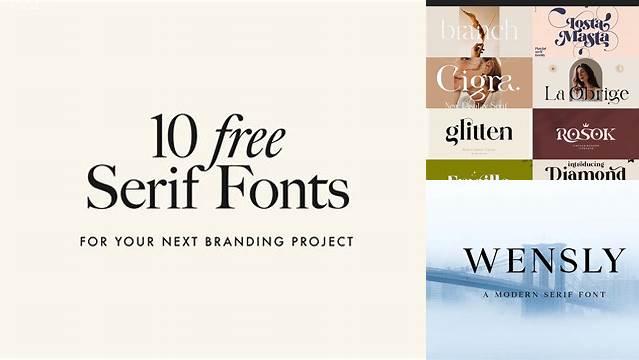
1. What Makes Modern Serif Fonts Unique?
Modern serif fonts stand out because they blend the timeless elegance of traditional serifs with a contemporary twist. Think of those classic fonts you see in books, but with a sleek, updated look. What truly sets modern serif fonts apart is their high contrast between thick and thin strokes, giving them a sophisticated and polished feel. These fonts often have a vertical stress (meaning the thickest parts of the letters are on the top and bottom rather than diagonally), which adds to their clean and structured appearance. Compared to other serif fonts, like old-style serifs that have a more organic and handwritten vibe, modern serifs feel much more geometric and refined. This makes them incredibly versatile, fitting seamlessly into both digital and print designs. You can use modern serif fonts free download options to create a luxurious feel in branding or add a touch of formality to editorial designs. Their unique character helps to make your text not just readable but also visually striking, enhancing the overall impact of your message. Using them effectively can truly elevate your design, making it feel professional and stylish.
2. The Timeless Appeal of Serif Fonts
Serif fonts, including modern serif fonts, have a long and rich history that contributes to their timeless appeal. The little strokes at the ends of letters, known as serifs, date back to ancient Roman inscriptions. These serifs were originally created to neaten the ends of brushstrokes when carving letters into stone. Over centuries, serifs became a hallmark of formal typography, lending a sense of tradition and authority to the text. Serif fonts are often associated with classic literature, prestigious newspapers, and academic publications, which further cements their reputation for reliability and sophistication. In the digital age, their readability remains a key advantage, particularly in large bodies of text. Whether you are reading a printed book or an online article, the serifs help guide the eye along the lines of text, making the reading experience smoother and more comfortable. The enduring appeal of serifs also lies in their versatility. While some serifs exude a serious and formal tone, others, like certain modern serif fonts free download options, have been adapted to feel more contemporary and approachable. This adaptability allows designers to use serif fonts in a wide range of projects, from branding and advertising to web design and publishing. By choosing a serif font, you're not just selecting a typeface; you're tapping into a legacy of typographic excellence that spans millennia.
3. Where to Find Modern Serif Fonts for Free
4. Top Free Modern Serif Fonts Available
When it comes to modern serif fonts free download, there are some real gems out there that can elevate your design projects. Let’s dive into some top picks. Playfair Display is a classic choice, known for its elegant and high-contrast design. It’s perfect for headlines and titles, adding a touch of sophistication to any project. Another popular option is Lora, a well-balanced and readable font that works beautifully for both body text and headings. Lora has a contemporary feel with roots in calligraphy, making it versatile for a range of applications. Merriweather is another excellent selection, specifically designed for on-screen readability. Its slightly condensed letterforms and sturdy serifs make it a great choice for websites and digital publications. If you're looking for something with a bit more personality, check out Raleway. While technically a sans-serif, its stylistic alternates include a beautiful serif version that’s perfect for adding a unique touch. For a more formal and traditional feel, Bodoni Moda is a fantastic option. Its sharp serifs and high contrast give it a luxurious and refined appearance. When exploring modern serif fonts free download options, these are just a few of the many high-quality choices available. Each font brings its own character and style, so experiment to find the perfect fit for your project. By using these fonts, you can achieve a professional and polished look without any cost.
5. How to Choose the Right Serif Font for Your Project
Choosing the right serif font, especially a modern serif font, for your project is crucial to ensure your design communicates effectively. First, consider the purpose of your design. Are you creating a logo for a luxury brand, designing a website, or laying out a magazine? Each context calls for a different style. For a high-end brand, a font like Bodoni Moda with its sharp contrast and elegant serifs might be perfect. For a website, you'll want something highly readable like Merriweather or Lora, which are designed for on-screen use. Next, think about the tone and message you want to convey. Modern serifs often evoke feelings of sophistication and professionalism, but they can also feel approachable depending on the specific font. A font with rounded serifs might feel softer and more friendly than one with sharp, angular serifs. Another essential factor is legibility. While a font might look beautiful on its own, it needs to be readable in various sizes and contexts. Test the font in both headlines and body text to make sure it performs well. Pay attention to the spacing between letters and the overall clarity of the letterforms. Also, consider the font pairing. A modern serif often pairs well with a clean sans-serif font, creating a balanced and visually appealing contrast. For example, you might use Playfair Display for headings and pair it with Open Sans for body text. When exploring modern serif fonts free download options, take the time to experiment and consider these factors to make the best choice for your project.
6. Pairing Modern Serif Fonts with Other Typefaces
Pairing fonts effectively is a key skill in design, and knowing how to combine modern serif fonts with other typefaces can significantly enhance your project’s visual appeal. The goal is to create a harmonious contrast that is both pleasing to the eye and easy to read. One of the most classic and reliable pairings is a modern serif with a sans-serif font. The serif font, with its traditional roots, provides elegance and structure, while the sans-serif font offers a clean, contemporary touch. For example, consider pairing the sophisticated Playfair Display with the minimalist Open Sans. This combination works well because the high contrast of Playfair Display stands out in headlines, while Open Sans ensures readability in body text. Another excellent pairing is Lora with Lato. Lora's calligraphic influences and balanced letterforms blend beautifully with Lato's clean and modern design. This combination is versatile and works well for both web and print projects. When choosing a sans-serif to pair with your modern serif font, look for fonts that have a similar x-height (the height of the lowercase letters). This consistency helps to create a more unified look. You can also consider the weight and style of the fonts. If your serif font is bold and dramatic, pair it with a simpler, lighter sans-serif. Conversely, a delicate serif font might pair well with a bolder sans-serif to create balance. Experimenting with modern serif fonts free download options and various pairings is crucial to finding the perfect combination for your design. By thoughtfully pairing fonts, you can create a visually dynamic and cohesive design that effectively communicates your message.
7. Using Serif Fonts in Web Design
When it comes to web design, the choice of font can significantly impact the user experience. Serif fonts, including modern serif fonts, can bring a touch of elegance and sophistication to your website. However, it’s crucial to use them strategically to ensure readability and visual appeal. One of the primary considerations for web design is legibility. While serifs are often associated with print, they can work beautifully on the web if chosen carefully. Fonts like Lora and Merriweather are specifically designed for on-screen reading, with clear letterforms and balanced spacing. These fonts maintain their readability even at smaller sizes, making them ideal for body text. When using modern serif fonts for headlines, you have more flexibility. A font like Playfair Display, with its high contrast and elegant serifs, can create a striking visual impact. However, it’s essential to ensure that the headline is still easy to read. Avoid using overly decorative or condensed serif fonts for large blocks of text, as they can strain the eyes. Font pairing is another critical aspect of web design. Combining a modern serif with a clean sans-serif font can create a balanced and visually appealing look. For instance, using Playfair Display for headings and Open Sans for body text is a classic combination that works well on many websites. Also, consider the website’s overall design and brand identity. If your brand has a formal and sophisticated feel, a modern serif font can reinforce that message. If your brand is more contemporary and minimalist, you might use serifs sparingly, perhaps only in headings or logos. Exploring modern serif fonts free download options can provide you with a variety of styles to experiment with in your web design projects. By carefully selecting and using serif fonts, you can enhance your website's visual appeal and user experience.
8. Serif Fonts in Branding and Logo Design
Serif fonts play a significant role in branding and logo design, as they convey a sense of tradition, authority, and sophistication. Modern serif fonts, in particular, can add a contemporary twist to these classic qualities, making them a popular choice for brands looking to balance heritage with innovation. When using serif fonts in a logo, consider the brand’s personality and target audience. A law firm or financial institution might opt for a more formal and traditional serif font, such as Bodoni Moda, to project stability and trust. A fashion brand, on the other hand, might choose a modern serif with a more unique and stylish character, like a font with sharp, angular serifs or high contrast strokes. Readability is crucial in logo design. The font should be clear and recognizable even at small sizes. Avoid overly ornate or complex serif fonts that can become illegible when scaled down. A well-designed logo should work effectively across various platforms, from business cards to websites, so choose a font that performs well in both print and digital media. Font pairing is also an important consideration. While a standalone serif font can create a strong visual identity, pairing it with a complementary sans-serif font can enhance the overall brand aesthetic. For example, a logo might use a modern serif for the main brand name and a clean sans-serif for a tagline or subtext. Color and spacing can further impact the effectiveness of a serif font in a logo. Experiment with different color combinations to see how they affect the font’s appearance. Pay attention to the spacing between letters (kerning) and between words (tracking) to ensure a balanced and visually appealing design. When exploring modern serif fonts free download options for branding, consider the long-term impact of your choice. A well-chosen serif font can contribute to a timeless and memorable brand identity. By carefully selecting and using serif fonts, you can create a logo that effectively communicates your brand’s values and personality.
9. Serif Fonts for Print vs. Digital Media
When choosing serif fonts, it's essential to consider whether your project will be used in print or digital media, as the optimal font choice can vary significantly depending on the medium. In print, serif fonts have traditionally been favored for their readability in large blocks of text. The serifs help guide the eye along the lines, making the reading experience smoother and more comfortable. Fonts like Times New Roman and Garamond are classic examples of serif fonts that excel in print. However, modern serif fonts like Lora and Merriweather also work beautifully in printed materials, offering a contemporary twist on traditional elegance. In digital media, the considerations are slightly different. Screen resolution and rendering can affect how fonts appear, and some serif fonts may become less legible at smaller sizes on screens. For this reason, it's crucial to choose fonts that are specifically designed for on-screen use. Lora and Merriweather, mentioned earlier, are excellent choices for digital body text because they maintain their clarity and readability even on screens. For headlines and larger text elements, you have more flexibility. Modern serif fonts like Playfair Display can create a striking visual impact on websites and digital publications. However, avoid using overly decorative or condensed serif fonts for large blocks of text, as they can strain the eyes. Font hinting is a technique used to optimize fonts for screen display, ensuring they render clearly even at small sizes. When downloading modern serif fonts free download for digital use, check if they include proper font hinting. Testing your font choices across different devices and browsers is essential to ensure they display correctly. What looks great on your computer might not look as good on a mobile device or tablet. By considering the specific requirements of print and digital media, you can choose serif fonts that effectively enhance your project’s readability and visual appeal.
10. The Psychology of Serif Fonts
Understanding the psychology of fonts, particularly serif fonts, can significantly enhance your design decisions. Fonts are more than just letterforms; they carry emotional and cultural associations that can influence how your message is perceived. Serif fonts are often associated with tradition, authority, and sophistication. This perception stems from their historical roots in classic literature, prestigious newspapers, and academic publications. When you use a serif font, you’re tapping into this legacy, conveying a sense of reliability and formality. Modern serif fonts, while still carrying these traditional associations, can also evoke a sense of contemporary elegance and innovation. They balance the classic appeal of serifs with a cleaner, more streamlined aesthetic, making them a versatile choice for brands looking to blend heritage with modernity. The specific characteristics of a serif font, such as the shape and weight of the serifs, can further influence its psychological impact. Fonts with sharp, angular serifs tend to feel more formal and authoritative, while those with rounded serifs can appear softer and more approachable. Font weight also plays a role. A bold serif font can convey strength and confidence, while a lighter weight font might feel more delicate and refined. Color further enhances the psychological impact of a serif font. Darker colors often amplify the sense of formality and seriousness, while lighter colors can create a more relaxed and inviting feel. When exploring modern serif fonts free download options, consider the emotions and associations you want to evoke in your audience. A well-chosen serif font can reinforce your brand’s personality and effectively communicate your message. By understanding the psychology of fonts, you can make informed design choices that resonate with your target audience.
11. Modern Serif Fonts for Headlines
Using modern serif fonts for headlines can add a touch of elegance and sophistication to any design project. Headlines are the first thing readers see, so choosing the right font is crucial for capturing attention and setting the tone. Modern serif fonts offer a blend of classic charm and contemporary style, making them a versatile choice for a wide range of applications. When selecting a modern serif font for headlines, consider the overall design aesthetic. If you’re aiming for a formal and refined look, fonts like Playfair Display or Bodoni Moda are excellent choices. These fonts have high contrast and sharp serifs, conveying a sense of luxury and sophistication. For a more approachable and contemporary feel, consider fonts like Lora or Merriweather. These fonts have a more balanced and readable design, making them suitable for headlines in a variety of contexts. Size and weight are important factors to consider. Headlines are typically larger than body text, so you can choose a font that makes a statement. However, ensure that the font remains legible, especially at larger sizes. Experiment with different weights to find the right balance between visual impact and readability. Font pairing is also essential. A modern serif font for headlines often pairs well with a clean sans-serif font for body text. This combination creates a visually appealing contrast that enhances the overall design. Consider using a tool like Google Fonts, which offers a vast library of modern serif fonts free download, to experiment with different pairings and styles. Context matters too. A headline font that works well for a luxury fashion brand might not be suitable for a tech startup. Tailor your font choice to the specific tone and message of your project. By carefully selecting and using modern serif fonts for headlines, you can create impactful and visually appealing designs that effectively capture your audience’s attention.
12. Modern Serif Fonts for Body Text
While modern serif fonts are often celebrated for their use in headlines, they can also be an excellent choice for body text, provided you select the right font and use it strategically. The key to using modern serif fonts for body text is readability. Unlike headlines, which are typically short and attention-grabbing, body text needs to be easy to read for extended periods. This means choosing a font that has clear letterforms, balanced spacing, and a comfortable x-height (the height of the lowercase letters). Some modern serif fonts are specifically designed for on-screen reading, making them ideal for body text in digital projects. Lora and Merriweather are two excellent examples. These fonts have been optimized for screen display, ensuring they remain legible even at smaller sizes. When selecting a modern serif font for body text, avoid fonts with overly decorative or condensed letterforms. These can strain the eyes and make reading more difficult. Look for fonts with a clean and straightforward design. Line height (leading) and letter spacing (tracking) also play a crucial role in readability. Ensure that your body text has adequate line height to prevent the lines from feeling cramped. Adjust the letter spacing if necessary to improve the overall flow of the text. Font pairing is another important consideration. While you can use a modern serif font for both headlines and body text, it’s often more effective to pair it with a sans-serif font. This creates a visual contrast that enhances the overall design. When exploring modern serif fonts free download options, test them in body text to see how they perform. Read a sample paragraph of text in the font to assess its readability. By carefully selecting and using modern serif fonts for body text, you can create designs that are both elegant and easy to read.
13. The Importance of Legibility in Font Choice
Legibility is paramount when choosing a font, regardless of whether you’re working with modern serif fonts or any other typeface. A font that looks beautiful but is difficult to read defeats the purpose of typography, which is to communicate effectively. Legibility refers to how easily individual letters can be distinguished from one another. A legible font has clear and distinct letterforms, balanced spacing, and a comfortable x-height. When a font is legible, readers can quickly and effortlessly process the text, enhancing their overall experience. Several factors contribute to legibility. Letter spacing (tracking) is crucial. If the letters are too close together, they can blur into one another, making the text difficult to read. If they are too far apart, the text can feel disjointed. Line height (leading) also plays a role. Adequate line height prevents the lines from feeling cramped and allows the eye to move smoothly from one line to the next. X-height, as mentioned earlier, is the height of the lowercase letters relative to the uppercase letters. A font with a comfortable x-height is generally easier to read. Font weight can also impact legibility. While bold fonts can be useful for headlines, they can become overwhelming in large blocks of text. A medium or regular weight is often the best choice for body text. When choosing modern serif fonts free download, test them in various contexts to assess their legibility. Read a sample paragraph of text in the font, both on screen and in print, to see how it performs. Consider the intended use of the font. If it’s for body text, prioritize legibility above all else. If it’s for headlines, you have more flexibility to choose a font that makes a statement, but still ensure it remains readable. By prioritizing legibility in your font choices, you can create designs that effectively communicate your message and provide a positive reading experience for your audience.
14. The Role of Contrast in Modern Serif Fonts
Contrast plays a vital role in the visual appeal and readability of modern serif fonts. In typography, contrast refers to the difference in thickness between the thickest and thinnest parts of a letterform. Modern serif fonts are characterized by their high contrast, which gives them a distinctive and elegant look. High contrast fonts have a dramatic difference between the thick and thin strokes, creating a sense of sophistication and refinement. Fonts like Bodoni Moda and Playfair Display are prime examples of modern serif fonts with high contrast. This contrast makes them visually striking and ideal for headlines and display text. However, high contrast fonts can be challenging to use in body text. The stark difference in stroke thickness can strain the eyes, especially when reading large blocks of text. If you choose to use a high contrast modern serif font for body text, ensure that the font is well-designed for readability and that you pay close attention to line height and letter spacing. Lower contrast modern serif fonts, such as Lora and Merriweather, are better suited for body text. These fonts have a more balanced contrast, making them easier to read for extended periods. Contrast also plays a role in font pairing. When pairing a modern serif font with a sans-serif font, consider the contrast between the two typefaces. If you’re using a high contrast serif font, pair it with a clean and simple sans-serif font to create a balanced look. If you’re using a lower contrast serif font, you can pair it with a more expressive sans-serif font. When exploring modern serif fonts free download options, assess the contrast level to determine the font's suitability for your project. By understanding the role of contrast in modern serif fonts, you can make informed design choices that enhance the visual impact and readability of your text.
15. The Impact of Font Weight on Serif Fonts
Font weight significantly impacts the appearance and readability of serif fonts, including modern serif fonts. Font weight refers to the thickness of the strokes in a typeface, ranging from light to extra-bold. Choosing the right font weight is crucial for conveying the intended message and ensuring legibility. Lighter font weights (e.g., ExtraLight, Light) convey a sense of delicacy, elegance, and refinement. They are often used in designs that aim to communicate a sense of luxury, sophistication, or minimalism. However, lighter weights can be challenging to read, especially in smaller sizes or on screens with lower resolution. Regular and medium font weights are the most versatile and readable options for body text. They provide a balanced appearance and are easy on the eyes, making them suitable for extended reading. These weights are ideal for a wide range of applications, from books and magazines to websites and digital publications. Bold and extra-bold font weights command attention and convey strength, confidence, and authority. They are commonly used for headlines, subheadings, and callouts to create visual emphasis and guide the reader's eye. However, using bold weights excessively can make the text feel overwhelming, so it’s essential to use them sparingly and strategically. The impact of font weight can also vary depending on the specific modern serif font. Some fonts are designed to look best in lighter weights, while others excel in bold weights. When exploring modern serif fonts free download options, experiment with different weights to see how they affect the font's appearance and readability. Consider the context in which the font will be used. A lighter weight might be suitable for a delicate design, while a bolder weight might be necessary for a strong brand identity. By understanding the impact of font weight on serif fonts, you can make informed design choices that enhance the visual appeal and effectiveness of your text.
16. How Kerning and Tracking Affect Serif Font Appearance
Kerning and tracking are crucial typographic adjustments that significantly affect the appearance and readability of serif fonts, particularly modern serif fonts. Understanding how these adjustments work is essential for achieving polished and professional typography. Kerning refers to the adjustment of space between individual pairs of letters. The goal of kerning is to create visually consistent spacing between letters, preventing awkward gaps or overlaps that can disrupt the flow of reading. Modern serif fonts, with their varied stroke widths and distinctive serifs, often require careful kerning to achieve optimal legibility. For example, the space between a capital